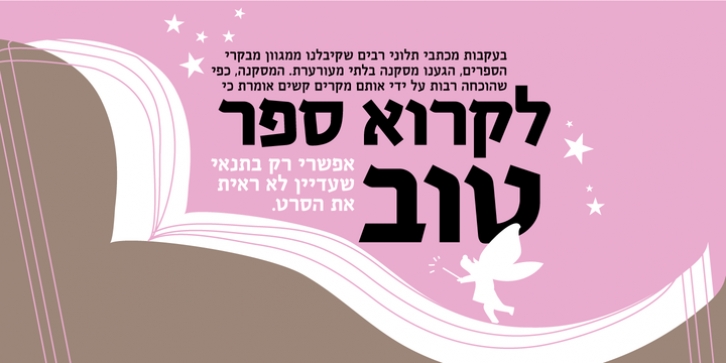
Revoluzia MF was designed by Zvika Rosenberg and published by Masterfont. Revoluzia MF contains 3 styles and family package options.
A revival of old hand painted sign in Old Jaffa, from the mid of 20th century.
Revoluzia MF Light·
Revoluzia MF Medium·